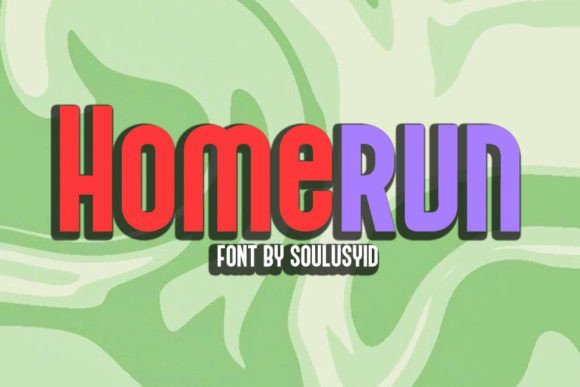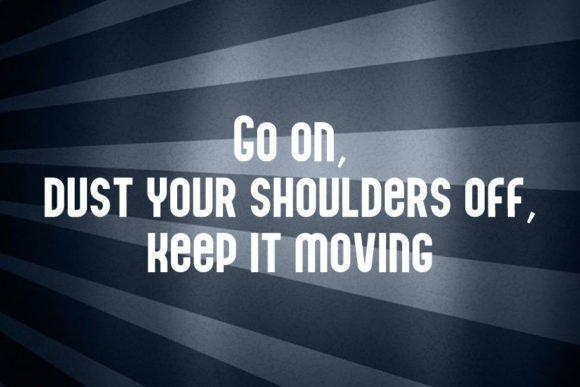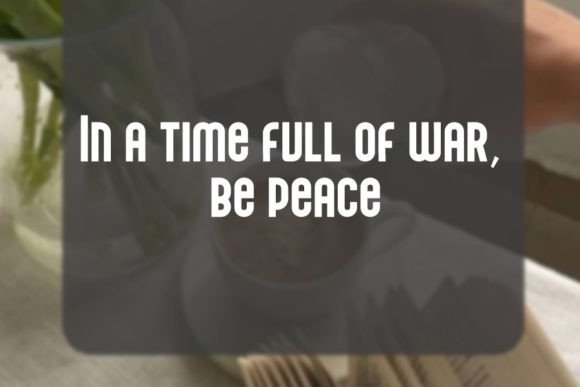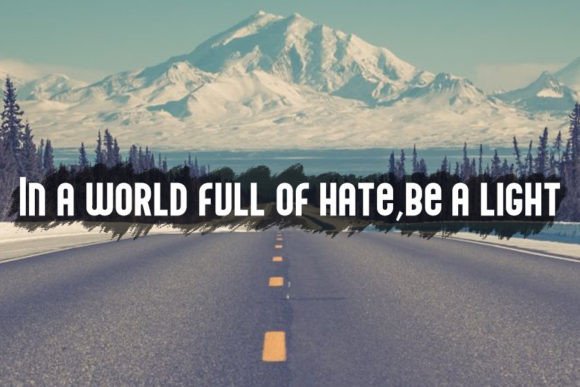
The Perfect Swing: Introducing Homerun Font
Imagine you’re a designer, and you’re about to create a logo for a sports brand. You’re looking for the perfect font to convey energy, power, and sophistication. You start browsing through different fonts, and then, you stumble upon it – Homerun Font. Its modern, bold, and imposing design instantly grabs your attention, and you can’t help but feel excited about the possibilities.
Homerun Font is a game-changer for designers who want to create a lasting impression. Its sharp edges and sleek lines make it dynamic and eye-catching, perfect for any project that requires a powerful and sophisticated look. Whether you’re designing a logo, a brochure, or a website, Homerun Font is a valuable asset that can elevate your design to the next level.
With Homerun Font, you’ll be able to create designs that are both bold and elegant, making it a must-have for any designer’s toolkit.
Homerun Font Key Features
- Font Family: Homerun is a sans-serif font family designed for sports and action-oriented projects.
- Font Sizes: Homerun is available in 4 different font sizes, ranging from 12 to 48 points.
- Unique Characteristics: The font features bold, dynamic lines and a geometric design, making it ideal for headlines and titles.
- Resolution: Designed for high-resolution displays, Homerun font looks great at resolutions up to 300 DPI.
- Style Options: Available in regular, bold, and italic styles, allowing for a range of creative possibilities.
Homerun Font Review
First off, I love the energetic vibe that Homerun Font brings to the table. ✨ The bold, rounded letters evoke a sense of playfulness and fun that’s perfect for sports, gaming, or other high-energy designs. The font’s friendly feel makes it an excellent choice for branding and advertising campaigns.
The Homerun Font also features a wide range of weights and styles, from light to bold, making it incredibly versatile. ✨ This means you can use it for everything from tiny text to large headings, without worrying about it getting lost or overpowering your design.
While Homerun Font is a solid choice for many projects, it does have some limitations. ⚠️ For one, it may not be the best choice for more formal or professional designs, where a cleaner, more traditional font might be a better fit. Additionally, the font’s rounded edges can sometimes make it difficult to read at very small sizes.
- Limited legibility at very small sizes
- Not suitable for formal or professional designs
Overall, I think Homerun Font is a great addition to any designer’s toolkit. While it may not be the best choice for every project, it’s perfect for high-energy designs where you want to create a sense of excitement and fun. With its wide range of weights and styles, it’s easy to use and customize, making it a great choice for designers of all levels.
Tips for Getting the Most Out of Homerun Font
Here are a few tips for getting the most out of Homerun Font:
- Use Homerun Font in combination with other fonts to create a unique and eye-catching design.
- Consider using Homerun Font for headings and titles to draw attention to important information.
Common Use Cases for Homerun Font
Homerun Font is commonly used for:
- Headings and titles in presentations and documents.
- Choose the Homerun Font for the team name and jersey number.
- Add a baseball-themed element, such as a baseball or a baseball bat, to the design.
- Use a bold color scheme to match the energy of the game.
- Pair the Homerun Font with a classic baseball font for a nostalgic look.
- Use a gradient effect to give the logo a 3D appearance.
- Add a catchphrase or slogan to the design to make it more dynamic.
- Choose the Homerun Font for the main quote or phrase.
- Use a clean and simple background to make the quote stand out.
- Add a sports-themed image or icon to the design to give it a personal touch.
- Pair the Homerun Font with
Project 1: Homerun Font Baseball Team Logo
Create a unique logo for a baseball team using the Homerun Font. This font is perfect for capturing the spirit of the game, with its bold and playful style.
Project 2: Homerun Font Sports-Themed Social Media Graphics
Project 3: Homerun Font Quote Posters for Sports Enthusiasts
Create motivational posters for sports enthusiasts using the Homerun Font. This font is perfect for adding a touch of excitement to quotes and phrases related to sports.